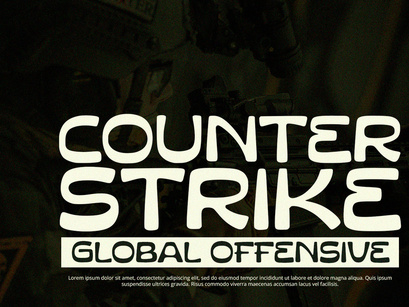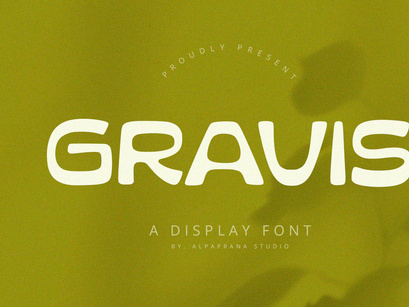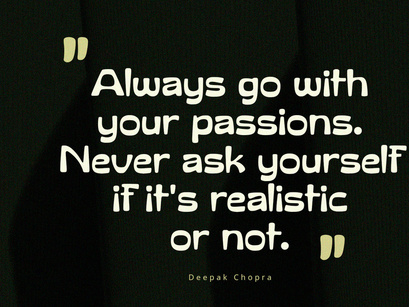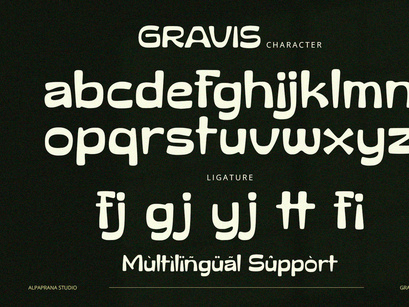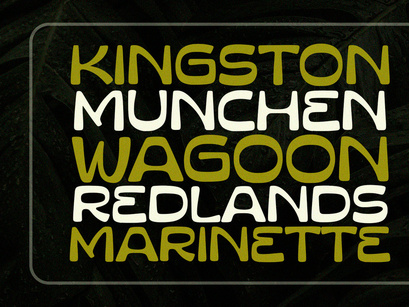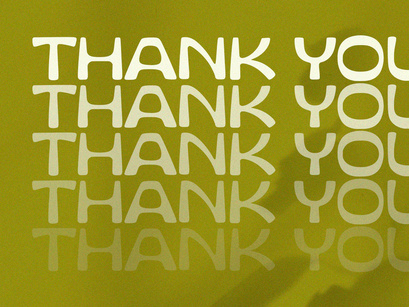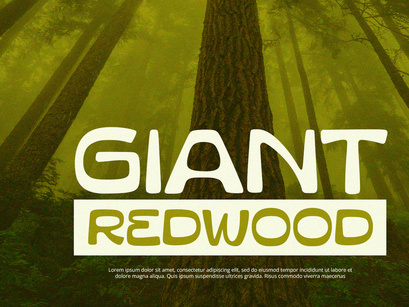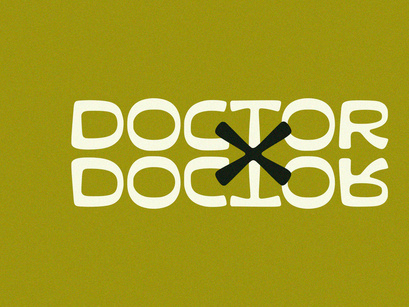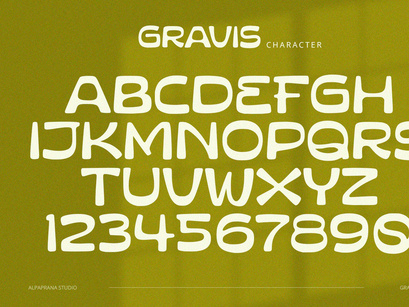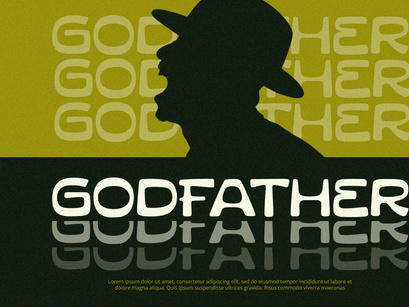
Gravis - Display Font
Gravis
Gravis is display font with modern and playful feels. It will be perfectly used for Branding, Logo Design, Lettering, Logotype, Clothing, Poster, magazine, packaging, posters, shopping bags, t-shirts, book covers, photography, special events and other design project.